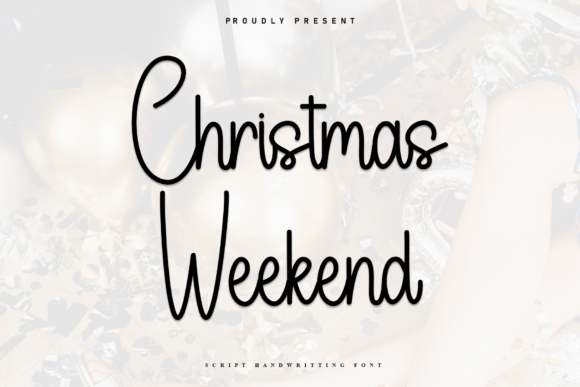
Introducing Christmas Weekend Font: The Perfect Blend of Luxury and Casual
Are you looking for a font that exudes elegance and sophistication, yet still has a relaxed and sporty vibe? Look no further than Christmas Weekend Font, a beautiful handwritten font that is sure to elevate your designs to the next level. In this article, we’ll dive into the features and benefits of Christmas Weekend Font, and explore how you can use it to create stunning designs for various applications.
What is Christmas Weekend Font?
Christmas Weekend Font is a unique and versatile font that is designed to give your designs a luxurious and elegant feel, while still maintaining a casual and relaxed tone. This font is perfect for designers and crafters who want to add a personal touch to their work, without sacrificing professionalism.
Characteristics of Christmas Weekend Font
So, what makes Christmas Weekend Font so special? Here are some of its key characteristics:
- Handwritten style: Christmas Weekend Font has a beautiful, handwritten style that looks like it was drawn with a marker. This gives it a personal and organic feel that is perfect for a wide range of design applications.
- Relaxed and sporty feel: Unlike some other elegant fonts, Christmas Weekend Font has a relaxed and sporty vibe that makes it perfect for designs that need to feel casual and approachable.
- Luxurious and elegant: Despite its casual feel, Christmas Weekend Font is still a luxurious and elegant font that is sure to add a touch of sophistication to your designs.
Uses for Christmas Weekend Font
So, what can you use Christmas Weekend Font for? The possibilities are endless! Here are some ideas to get you started:
- Branding and logos: Use Christmas Weekend Font to create a unique and memorable brand identity that stands out from the crowd.
- Wedding supplies: Add a touch of elegance and sophistication to your wedding designs, from invitations to stationery.
- Greeting cards: Create beautiful and heartfelt greeting cards for special occasions, such as Christmas, birthdays, and anniversaries.
- Fashion and lookbooks: Use Christmas Weekend Font to add a luxurious and high-end feel to your fashion designs and lookbooks.
- Marketing promotions: Elevate your marketing materials, from brochures to flyers, with the elegant and sophisticated feel of Christmas Weekend Font.
Tips for Using Christmas Weekend Font
Here are some tips for getting the most out of Christmas Weekend Font:
- Pair it with other fonts: Experiment with pairing Christmas Weekend Font with other fonts to create a unique and interesting contrast.
- Use it in combination with images: Use Christmas Weekend Font in combination with beautiful images to create stunning designs that really pop.
- Experiment with colors and textures: Don’t be afraid to experiment with different colors and textures to add depth and interest to your designs.
In conclusion, Christmas Weekend Font is a versatile and elegant font that is perfect for designers and crafters who want to add a touch of luxury and sophistication to their designs. With its relaxed and sporty feel, it’s ideal for a wide range of applications, from branding and logos to wedding supplies and greeting cards. So why not give it a try and see how it can elevate your designs to the next level?